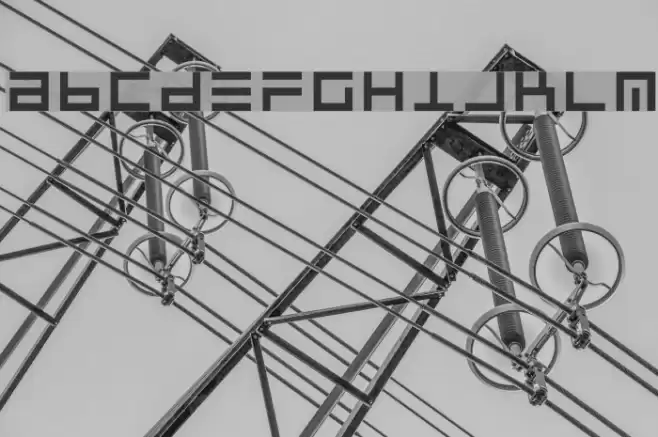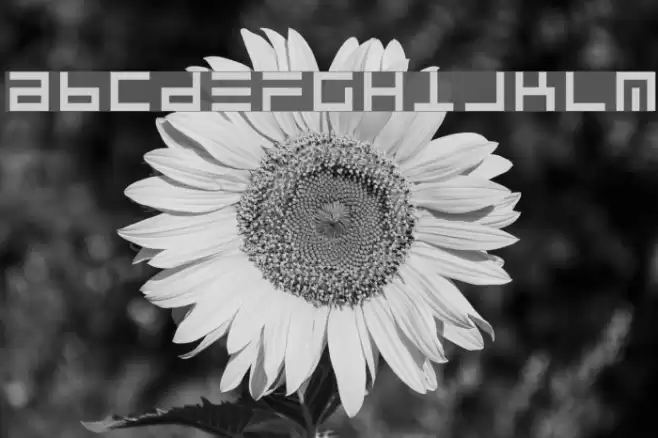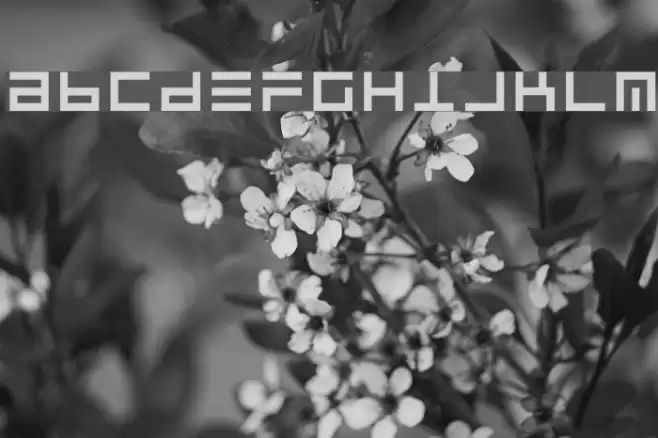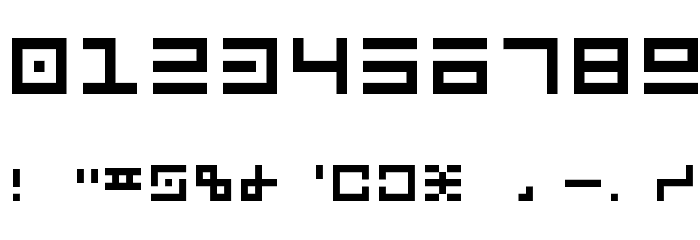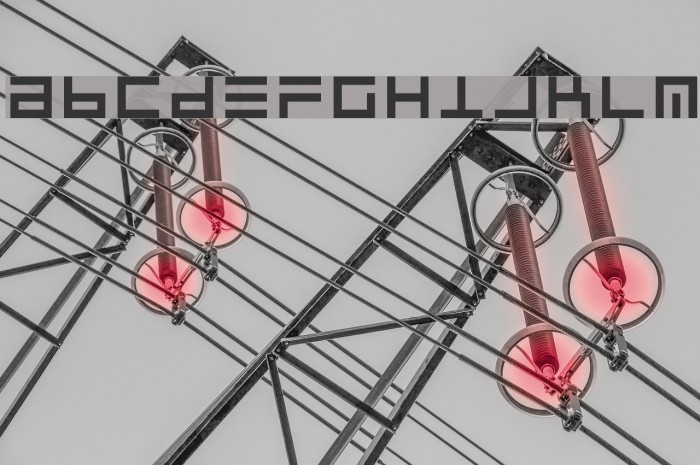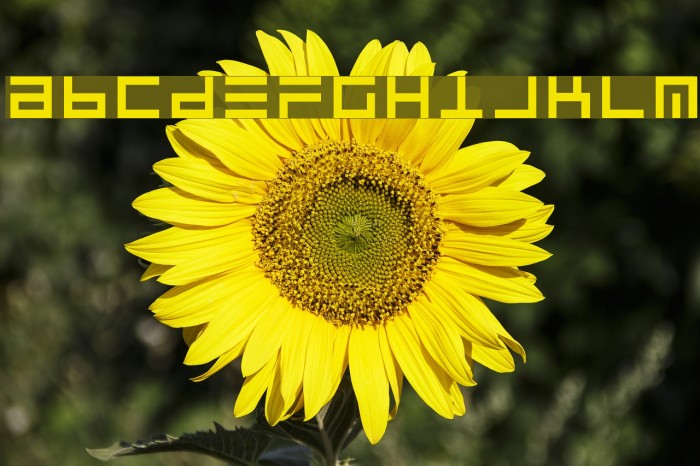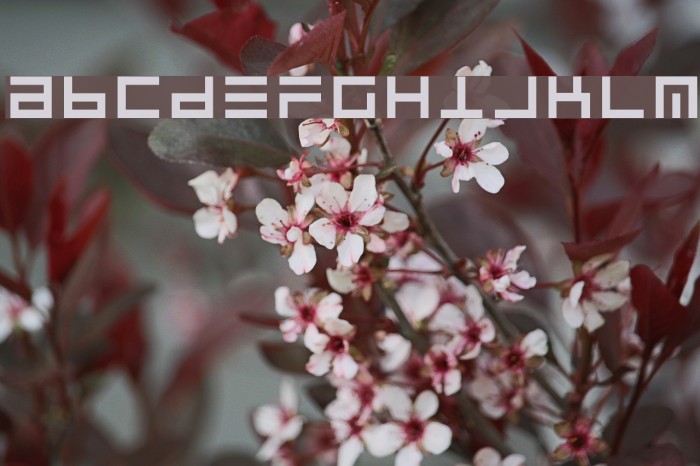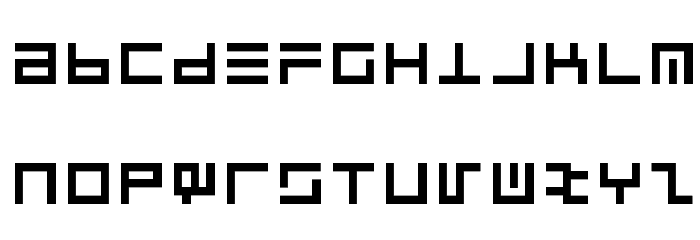
RSUltraLine Font
RSUltraLine Description
This font features a bold, geometric design with a distinctly modern and futuristic aesthetic. Each character is constructed with sharp, angular lines and a consistent stroke width, creating a uniform and cohesive appearance. The uppercase and lowercase letters share a similar structure, enhancing the font's minimalistic and streamlined look. The numerals and special characters maintain the same geometric style, ensuring visual harmony across all elements. This font's strong, blocky presence makes it ideal for projects that require a contemporary and assertive typeface.
A bold, geometric font with a modern and futuristic style from Futuristic fonts.
- Proposed Projects: Ideal for technology branding, video game interfaces, sci-fi themed designs, and modern posters.